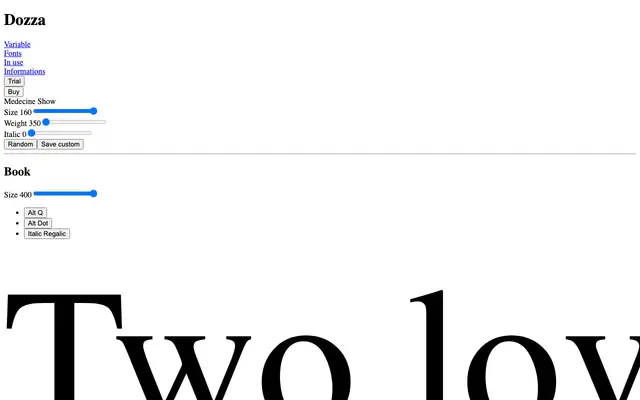
A variable serif from Pizza Typefaces with a weight axis and a distinctly named 'Regalic' italic, suited to editorial and long-form text settings.
Dozza is a variable serif offering a continuous weight axis alongside upright and italic cuts, with the italic referred to as 'Regalic' — a detail that suggests the italic was drawn with its own character rather than simply slanted from the roman. The specimen shows the family performing well at both display sizes and extended text, with clean construction across Book and Regular weights. Alternate glyphs for Q and the period add a degree of personality without disrupting the overall composure.
The specimen shows a serif with classical proportions, upright stress and varying weights from Book through Regular, with a distinct italic variant labelled 'Regalic', pointing to a transitional or humanist serif lineage with expressive italic forms.